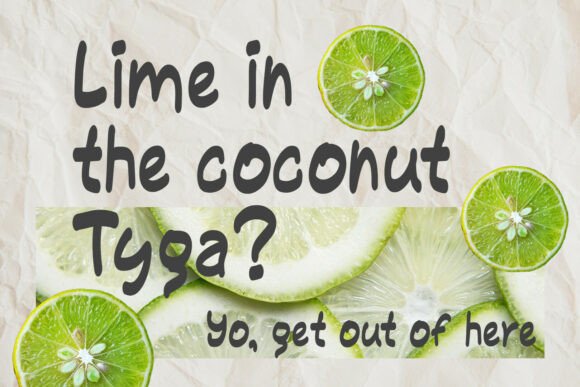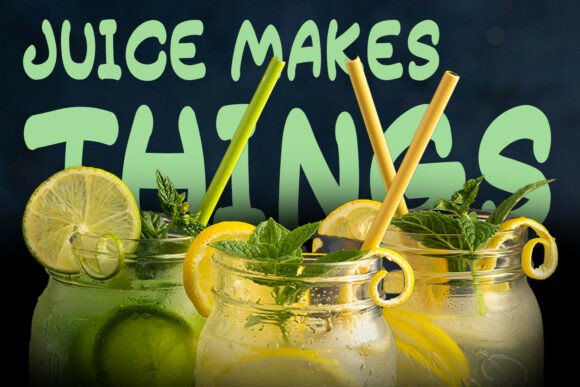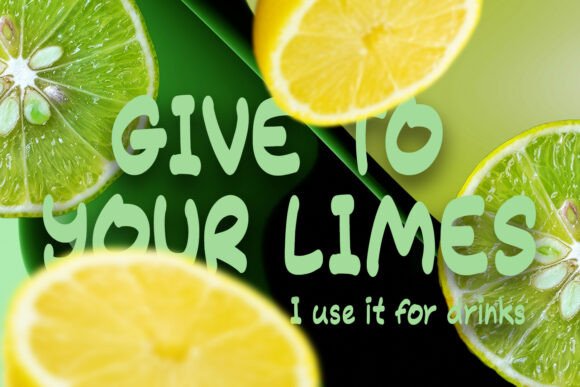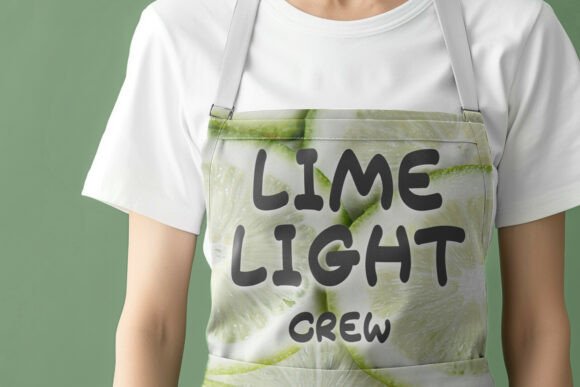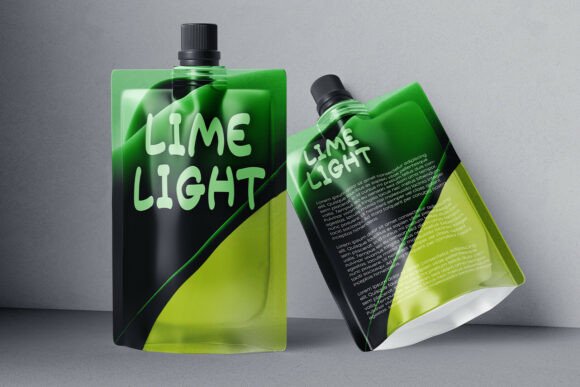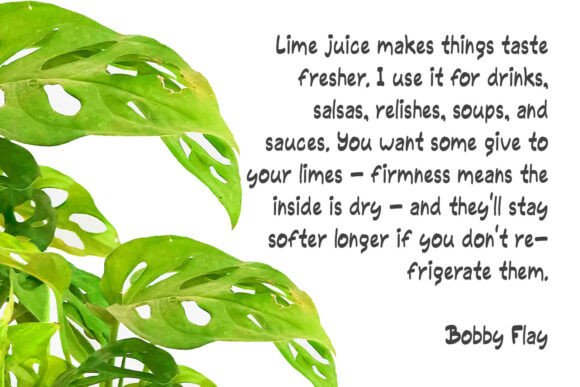
Banolime Font: The Perfect Choice for Your Creative Projects
Are you looking for a font that can add a touch of playfulness and friendliness to your designs? Look no further than Banolime, a fresh and modern handwritten font that’s perfect for a wide range of creative projects. With its rounded strokes and casual vibe, Banolime is ideal for designers and crafters who want to create eye-catching and engaging designs that stand out from the crowd.
What is Banolime Font?
Banolime is a beautifully crafted handwritten font that’s designed to bring a sense of fun and approachability to your designs. Its organic shapes and smooth curves make it perfect for use in a variety of projects, from modern branding and packaging to social media graphics, posters, and merchandise. Whether you’re creating a logo, a flyer, or a social media post, Banolime is the perfect choice for adding a touch of personality and whimsy to your design.
Key Features of Banolime Font
So what makes Banolime font so special? Here are just a few of its key features:
- Rounded Strokes: Banolime’s rounded strokes give it a friendly and approachable feel that’s perfect for designs that need to be relatable and engaging.
- Handwritten Style: Banolime’s handwritten style gives it a personal and organic feel that’s perfect for designs that need to be unique and eye-catching.
- Versatile: Banolime is versatile enough to be used in a wide range of projects, from digital designs like social media graphics and website headers to print designs like posters, flyers, and packaging.
- Easy to Read: Despite its playful style, Banolime is easy to read and understand, making it perfect for designs that need to communicate a message clearly and effectively.
Uses of Banolime Font
Banolime font is perfect for a wide range of creative projects, including:
- Logos: Banolime’s unique and eye-catching style makes it perfect for logos that need to stand out from the crowd.
- Packaging: Banolime’s playful and approachable feel makes it perfect for packaging designs that need to be fun and engaging.
- Social Media: Banolime’s modern and trendy style makes it perfect for social media graphics that need to be eye-catching and engaging.
- Posters: Banolime’s bold and playful style makes it perfect for posters that need to grab attention and communicate a message.
- Merchandise: Banolime’s fun and playful style makes it perfect for merchandise designs that need to be unique and eye-catching.
Why Choose Banolime Font?
So why should you choose Banolime font for your creative projects? Here are just a few reasons:
- Unique Style: Banolime’s unique and eye-catching style sets it apart from other fonts and makes it perfect for designs that need to stand out.
- Versatile: Banolime is versatile enough to be used in a wide range of projects, making it a great addition to any designer’s toolkit.
- High-Quality: Banolime is a high-quality font that’s designed to deliver exceptional results, whether you’re working on a digital or print project.
| Font Name | Banolime Font |
| Author | ArtiXLabs |
In conclusion, Banolime font is a fresh and playful handwritten font that’s perfect for designers and crafters who want to add a touch of personality and whimsy to their designs. With its rounded strokes, organic shapes, and smooth curves, Banolime is versatile enough to be used in a wide range of projects, from modern branding and packaging to social media graphics, posters, and merchandise. Whether you’re a professional designer or a crafter, Banolime is a great choice for any project that needs a casual yet eye-catching look.